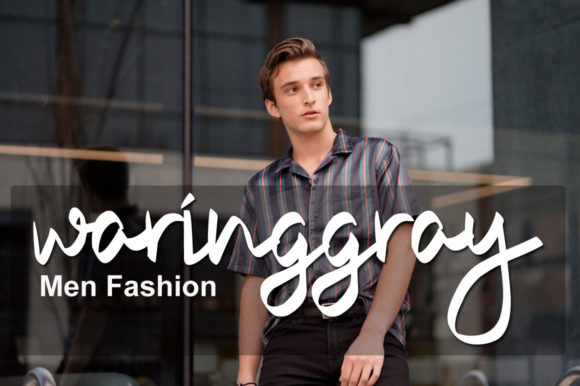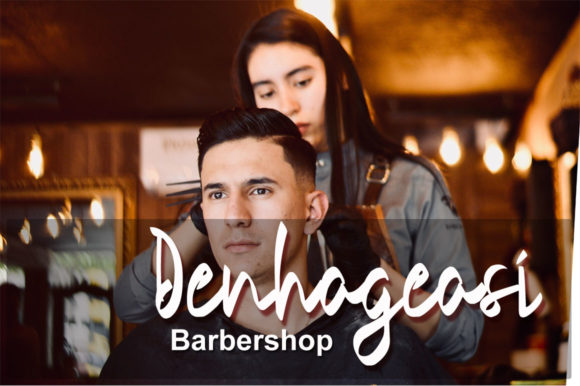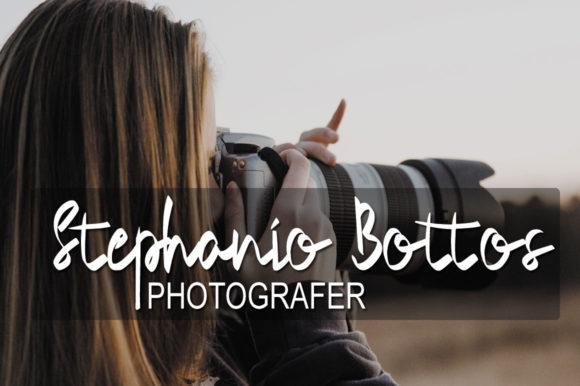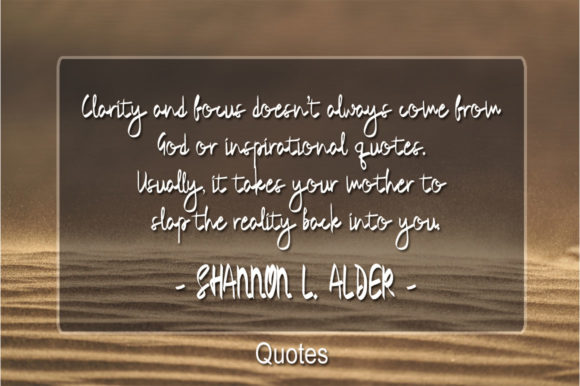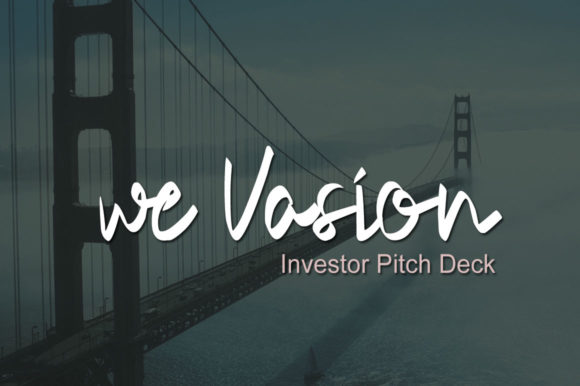
Discover the Elegance of Deen Haag Font: A Modern Hand-Lettering Marvel
The Deen Haag font is a modern hand-lettering font that has taken the design world by storm. With its elegant yet striking look, it’s perfect for a wide range of designs, from wedding invitations and branding to packaging and digital media. In this article, we’ll dive into the world of Deen Haag font, exploring its features, benefits, and uses, as well as provide tips for designers and crafters looking to make the most of this beautiful font.
What is Deen Haag Font?
Deen Haag is a hand-lettered font that boasts a unique blend of modernity and sophistication. Its elegant strokes and refined lines make it an ideal choice for designers seeking to add a touch of luxury to their work. The font’s creator has carefully crafted each letter to ensure that it is not only aesthetically pleasing but also highly legible, making it suitable for use in a variety of contexts.
Key Features of Deen Haag Font
- Elegant and Striking Design: Deen Haag’s modern hand-lettering style gives it an air of sophistication and elegance, making it perfect for high-end designs.
- High Legibility: The font’s clear and refined lines ensure that it remains easy to read, even at smaller sizes.
- Versatile: Deen Haag is suitable for a wide range of designs, from digital media to print materials.
- Unique Character Set: The font comes with a range of characters, including uppercase and lowercase letters, numbers, and punctuation marks.
Benefits of Using Deen Haag Font
So, why should designers and crafters choose Deen Haag font for their projects? Here are just a few benefits:
- Adds a Touch of Elegance: Deen Haag’s sophisticated design instantly elevates any project, adding a touch of luxury and refinement.
- Stand Out from the Crowd: With its unique and striking look, Deen Haag helps designers create eye-catching designs that stand out from the competition.
- Time-Saving: With Deen Haag, designers can quickly create professional-looking designs without spending hours on lettering and typography.
Uses of Deen Haag Font
Deen Haag’s versatility makes it suitable for a wide range of designs, including:
- Wedding Invitations and Stationery: Add a touch of elegance to wedding invitations, save-the-date cards, and other stationery.
- Branding and Packaging: Use Deen Haag to create eye-catching logos, labels, and packaging that stands out on store shelves.
- Digital Media: The font is perfect for social media graphics, blog posts, and website headers.
- Signage and Display: Deen Haag is ideal for creating eye-catching signs, posters, and display materials.
To get the most out of Deen Haag font, here are some tips:
- Experiment with Colors and Textures: Deen Haag looks stunning in a range of colors and textures, so don’t be afraid to experiment and find the perfect combination for your design.
- Mix and Match with Other Fonts: Combine Deen Haag with other fonts to create visually interesting and dynamic designs.
- Pay Attention to Kerning and Spacing: Make sure to adjust the kerning and spacing to ensure that your text is easy to read and visually appealing.
- Use it for Headlines and Titles: Deen Haag is perfect for headlines and titles, where its elegant and striking design can really shine.
In conclusion, Deen Haag font is a modern hand-lettering marvel that offers designers and crafters a unique and elegant solution for their typography needs. With its striking design, high legibility, and versatility, it’s perfect for a wide range of designs, from wedding invitations and branding to packaging and digital media. By following the tips outlined in this article, designers and crafters can unlock the full potential of Deen Haag and create stunning designs that leave a lasting impression.